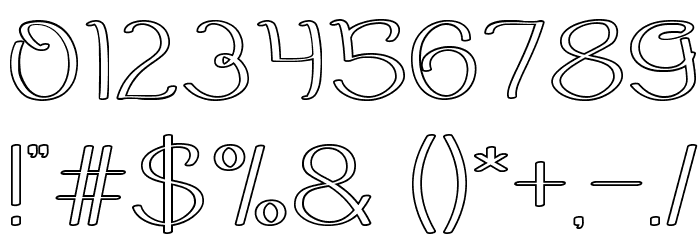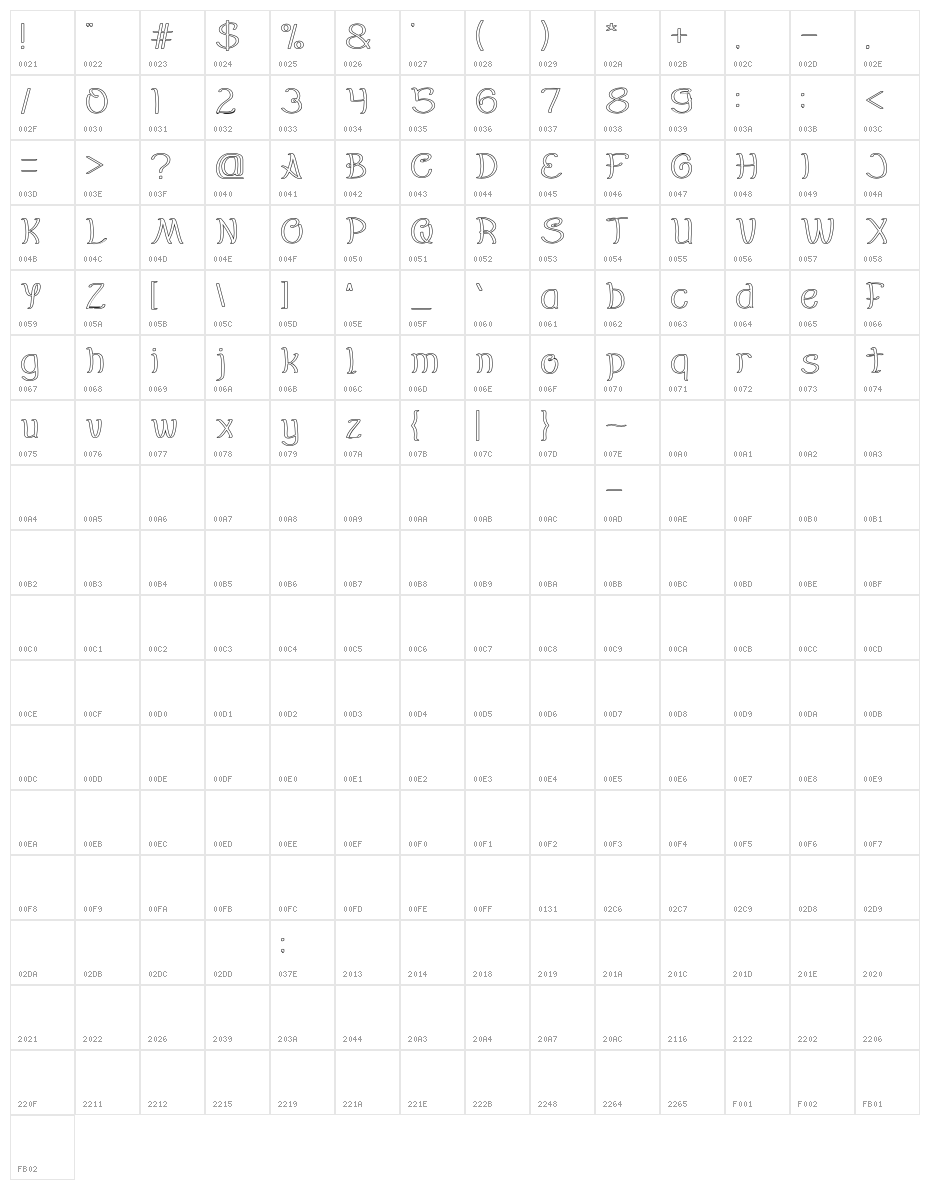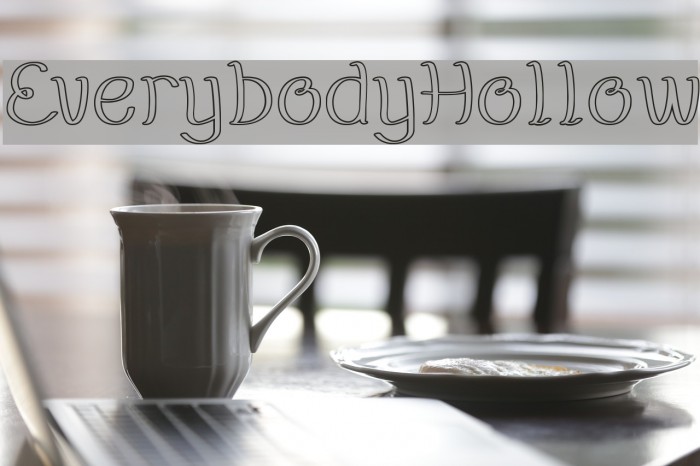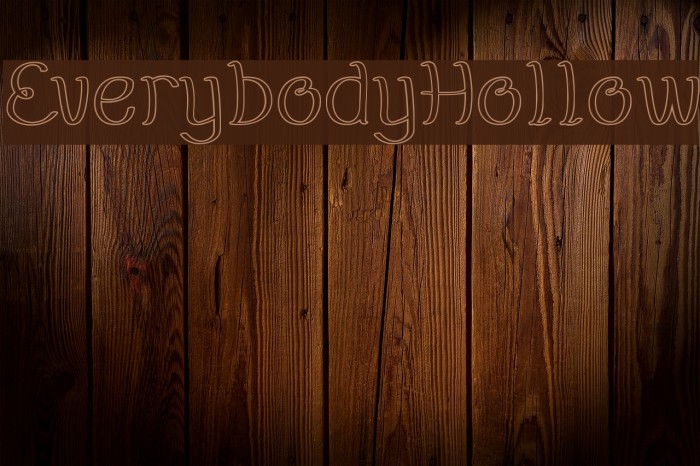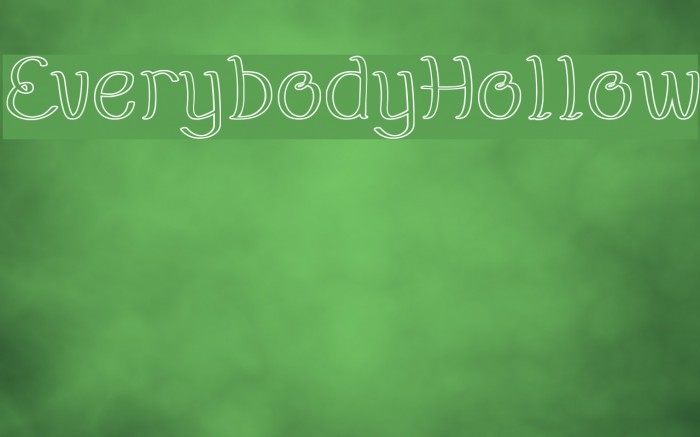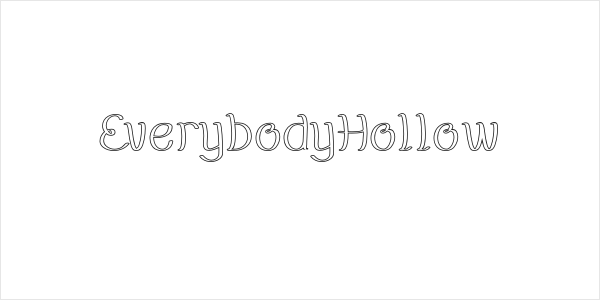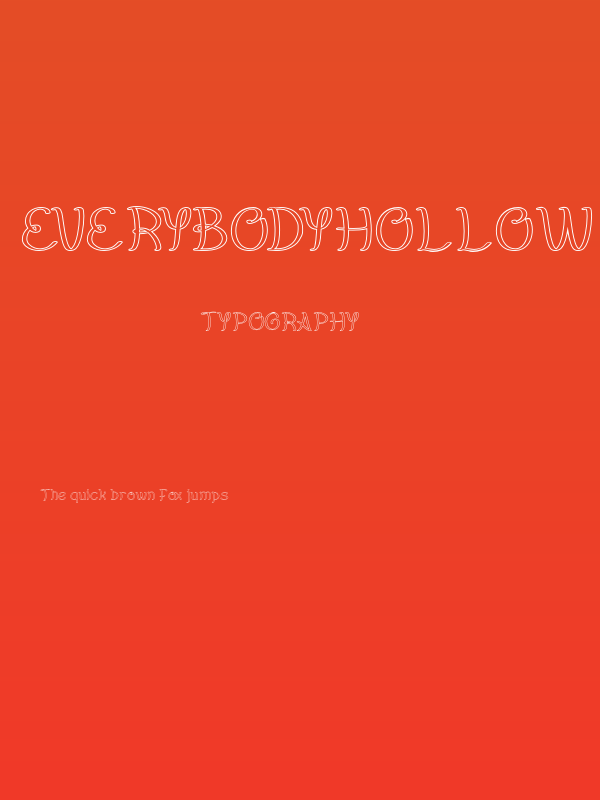
EverybodyHollow Font
EverybodyHollow Description
This font features a playful and whimsical design with hollow, outlined characters that give it a unique and eye-catching appearance. The letters are rounded and slightly irregular, adding to its charm and informal style. The uppercase and lowercase letters maintain a consistent flow, while the numerals and special characters complement the overall aesthetic. The font's open and airy structure makes it suitable for creative projects where a lighthearted and fun vibe is desired.
| Overall Style | Whimsical |
| Proposed Projects | Ideal for children's books, greeting cards, playful branding, and creative posters. |